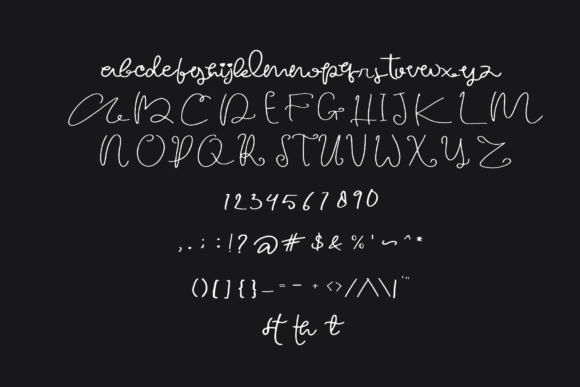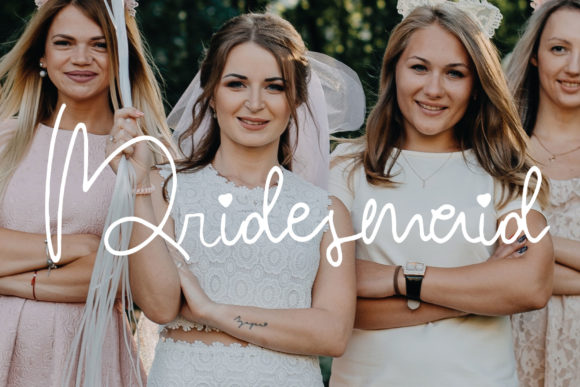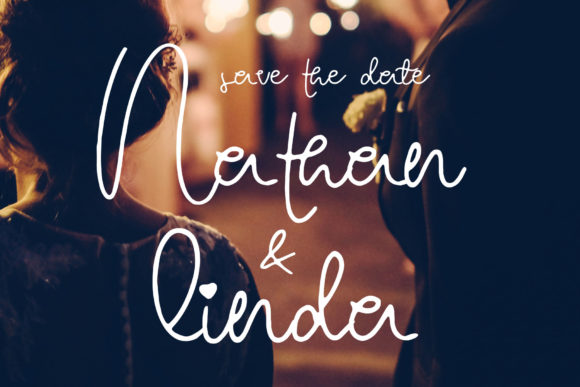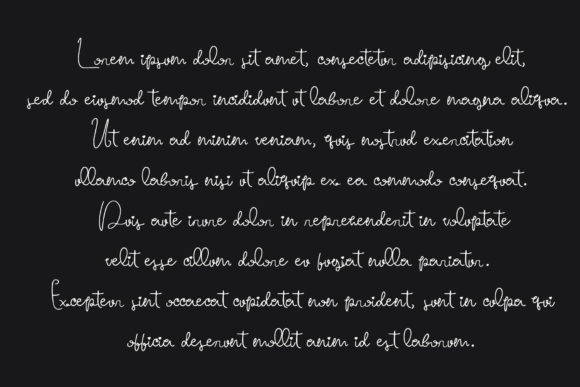
HomeScript FontsZaline Font Script Fonts Zaline Font FacebookXPinterestWhatsApp Zaline Font Poster 2 Zaline Font Poster 3 Zaline Font Poster 4 Zaline Font Poster 5 About Zaline Font Zaline is a cute and sweet script font with a casual vibe. Fall in love with its modern simplicity. DOWNLOAD ON CREATIVE FABRICAThis font is sold and delivered by Creative Fabrica. Font Canyon may earn a commission if you buy through this link. People also explored Summer Story Font My Sweety Font Rusted Textured Glyphs Font Parabumcy Font Candyman Font Meyabi Font Welcome Affection Font Bulldog Font Leonardo Rigallante Font 379 0 TagsZaline Font Previous articleMangoks FontNext articleSteias Font LEAVE A REPLY Cancel reply Comment: Please enter your comment! Name:* Please enter your name here Email:* You have entered an incorrect email address! Please enter your email address here Website: Save my name, email, and website in this browser for the next time I comment. Personal Use Free Millea Personal Use Free Read more about this font Adriator Personal Use Free Read more about this font Wadjet Personal Use Free Read more about this font Loving Personal Use Free Read more about this font BLOG Top 7 Google Fonts Alternatives for Faster and Privacy-Friendly Web Design (2025) Top 7 Google Fonts Alternatives for Faster and Privacy-Friendly Web Design (2025) When it comes to web typography, Google Fonts has long been the go-to... Fonts That Capture the Spirit of New York City Transform Your Website: Elevate Your Typography with 7 Best Web Font Generators Top 10 Handwritten Fonts That Elevate Your Designs